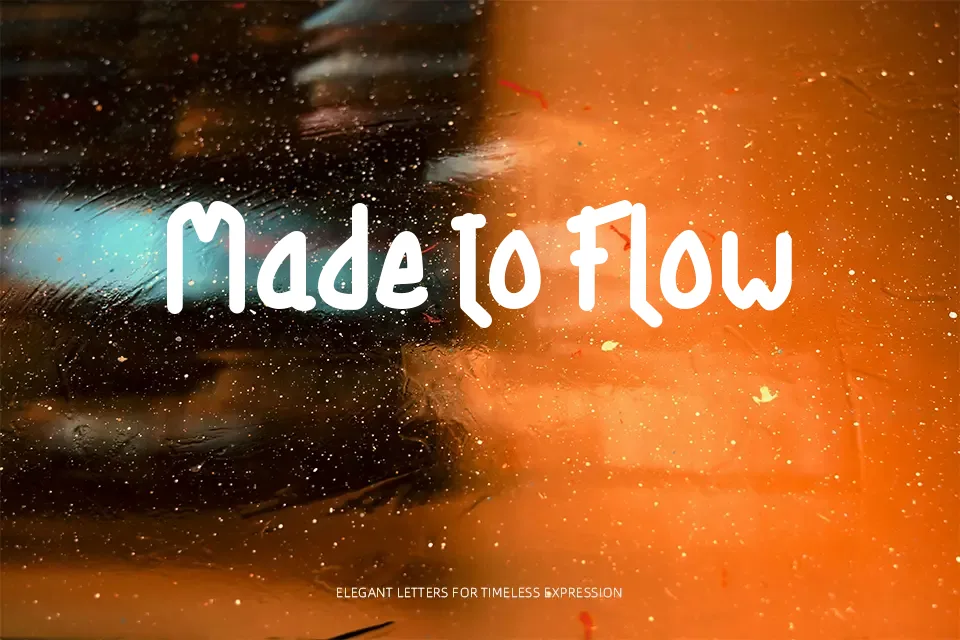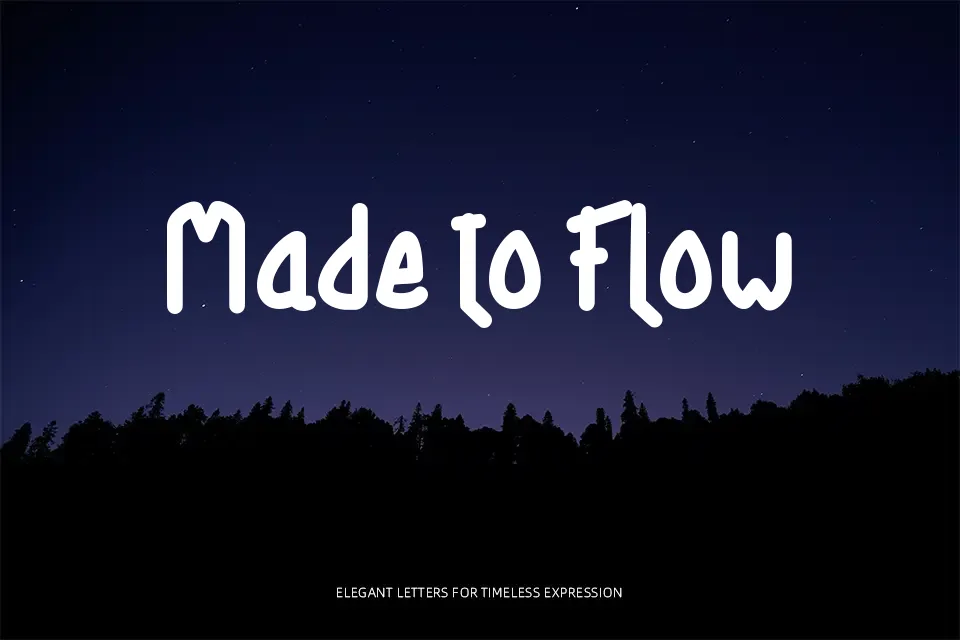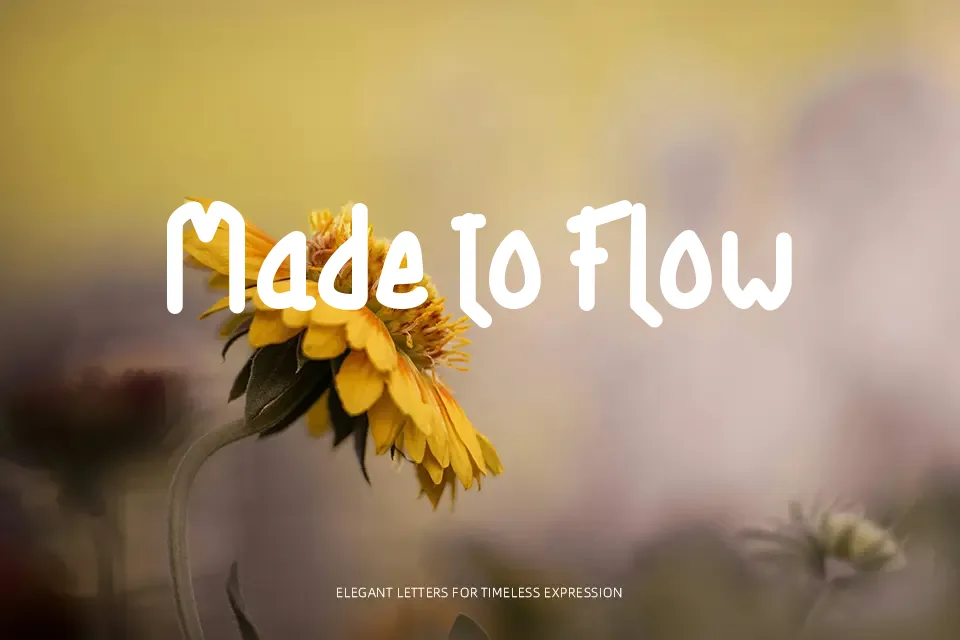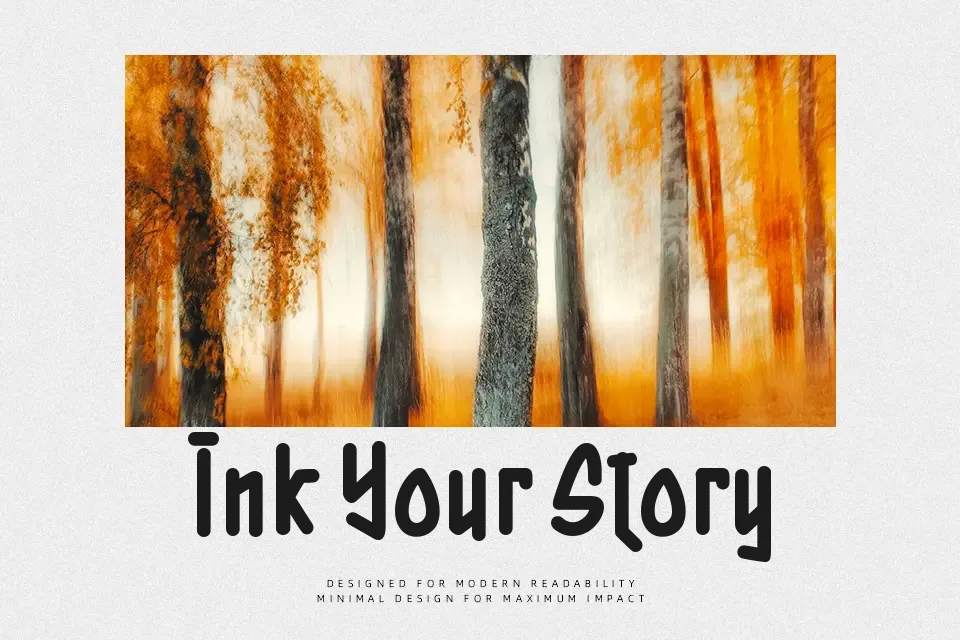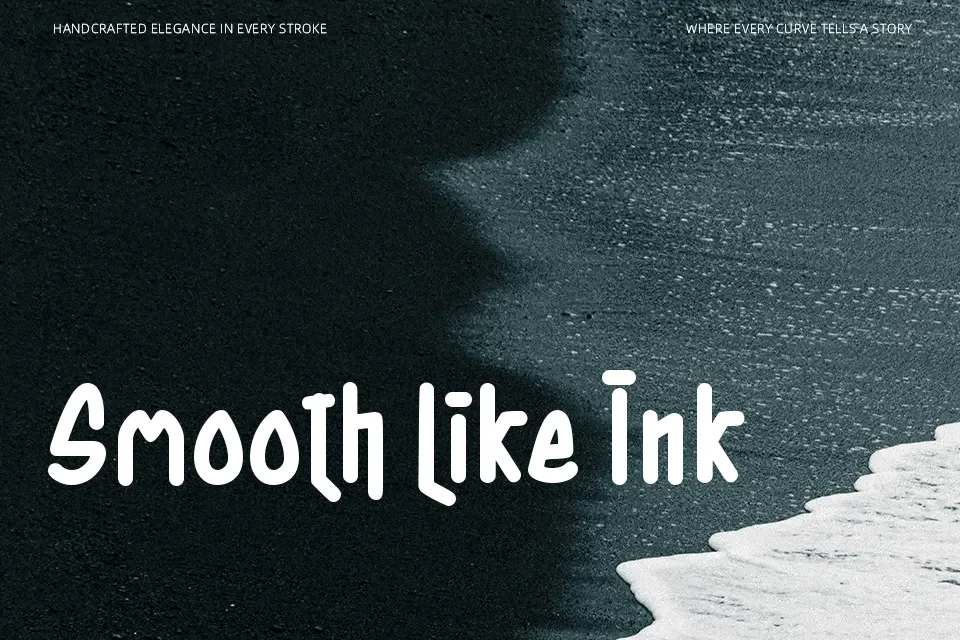
Artisans Font
Artisans carries a quiet confidence — its condensed width and fluid, hand-drawn strokes give it a refined yet approachable feel that reads more like a personal signature than a polished typeface. The letterforms lean into organic irregularity without becoming messy, making it a credible pick for artisan product labels, small-batch packaging, or handcrafted stationery. That said, the condensed structure limits readability at small sizes, and the informal nature of the strokes makes it a poor fit for formal corporate settings or body copy. Where it genuinely works: display use at medium-to-large sizes, where the texture and rhythm of the handwriting can breathe and register clearly.
Best For:- Artisan product label headers
– Small-batch packaging and branding
– Handcrafted stationery and greeting cards
– Social media quote graphics with a warm, personal tone
Not Ideal For:- Long body text or multi-line paragraph copy
– Corporate presentations or formal reports
– Small-size UI text or web body copy
– Designs requiring strict geometric consistency
Perfect for branding, business card, and invitation, with a artistic and condensed style.